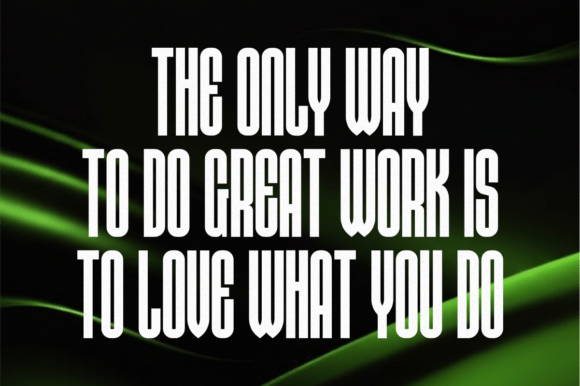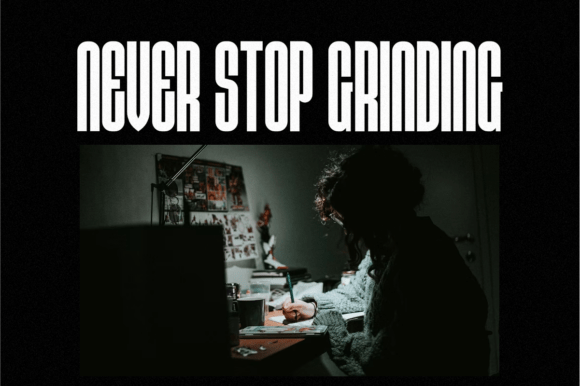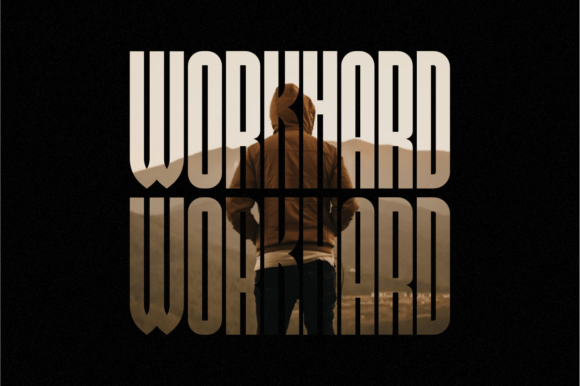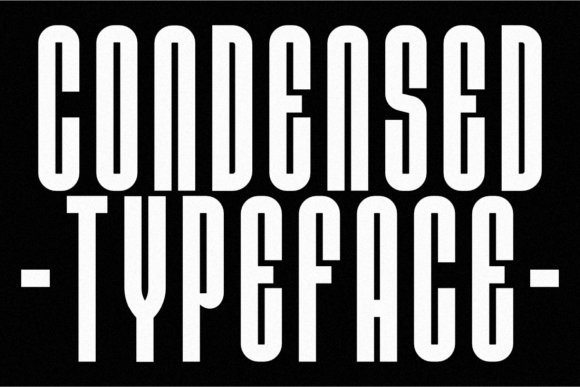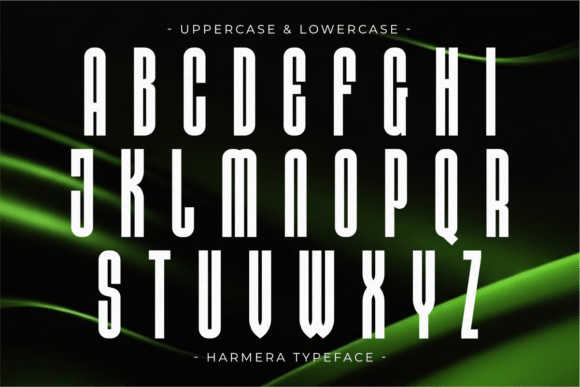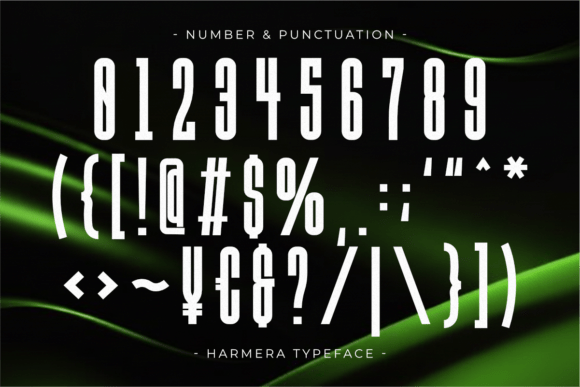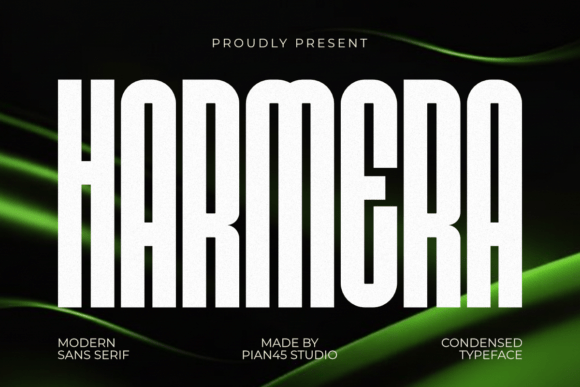
Introducing Harmera Font: The Ultimate Modern Sans Serif for Bold Statements
In the world of typography, a font can make or break the visual identity of a brand, product, or editorial layout. For designers and crafters seeking a typeface that commands attention and exudes sophistication, Harmera Font is the perfect solution. This modern sans serif font is specifically designed to make a lasting impact, boasting a unique blend of ultra-bold, condensed structure and soft, rounded terminals.
The Design Philosophy Behind Harmera
Harmera is more than just a font – it’s a statement piece. Its design philosophy revolves around creating a commanding and minimalist aesthetic that’s perfect for high-fashion branding, monumental editorial layouts, sports logos, and colossal headlines. The font’s ultra-bold, condensed structure allows it to dominate any layout, while its soft, rounded terminals add a touch of warmth and approachability.
Key Features of Harmera Font
• Ultra-Bold and Condensed: Harmera’s bold structure ensures maximum visibility and impact, making it perfect for headlines, titles, and logos.
• Soft and Rounded Terminals: The font’s rounded terminals add a touch of sophistication and elegance, setting it apart from other sans serif fonts.
• All-Caps Typeface: Harmera is designed as an all-caps typeface, ensuring a clean and striking visual identity.
• Modern and Sophisticated: The font’s modern sans serif design makes it perfect for contemporary branding, editorial layouts, and advertising.
Perfect for High-Impact Designs
Harmera Font is specifically designed for projects that demand a dominant, clean, and striking vertical presence. Some of the ideal use cases for Harmera include:
• High-Fashion Branding: Make a statement with Harmera’s bold and sophisticated design, perfect for luxury fashion brands.
• Monumental Editorial Layouts: Use Harmera to create striking headlines and titles that demand attention.
• Sports Logos: The font’s bold and condensed structure makes it perfect for sports logos that require a strong and dynamic visual identity.
• Colossal Headlines: Harmera is designed to make a lasting impact, making it perfect for large-scale headlines and titles.
Why Choose Harmera Font?
With Harmera Font, designers and crafters can instantly elevate their projects with a sophisticated, contemporary, and instantly recognizable visual identity. The font’s unique blend of bold and elegant design elements makes it an essential tool for any project demanding a dominant, clean, and striking vertical presence.
Some of the benefits of choosing Harmera Font include:
• Increased Visibility: Harmera’s bold design ensures maximum visibility and impact.
• Improved Brand Recognition: The font’s unique and sophisticated design helps to create a lasting impression.
• Versatility: Harmera can be used across a range of projects, from high-fashion branding to sports logos.
Harmera Font is a game-changing modern sans serif font that’s perfect for designers and crafters seeking to make a bold statement. Its unique blend of ultra-bold, condensed structure and soft, rounded terminals makes it an essential tool for any project demanding a dominant, clean, and striking vertical presence. With Harmera, you can instantly elevate your projects and create a lasting impression.